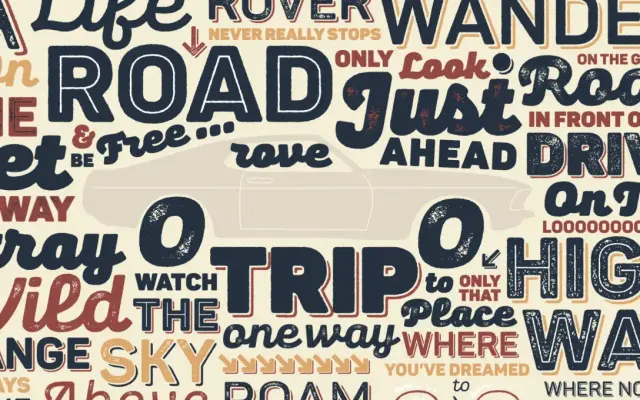
Panton Rust
Fontfabric · Plamen Motev, Stan Partalev, Ventsislav Dzhokov
A 72-style textured display family from Fontfabric, built on the Panton skeleton and layered with grunge, shadow, inline and fill variants for vintage and crafted aesthetics.
Companion to the original Panton sans-serif, this family extends that geometric foundation into heavily textured territory across five weights from SemiBold to Heavy. Each weight ships with multiple texture layers — Base, Shadow, Grunge, Grunge Shadow, Grunge Fill and Inline — designed to be stacked for multicolour effects. A Script subset mirrors the weight range with its own texture treatments, and the whole family covers Extended Latin and Cyrillic for over 130 languages.
A display typeface built around layered tactile effects — shadow, grunge, inline and fill variants — designed explicitly for headlines, packaging and branding rather than running text.